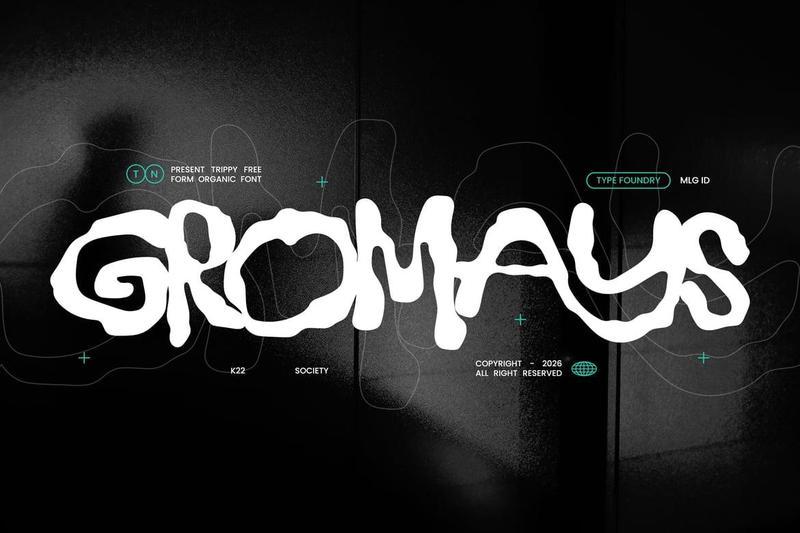
Gromays – Experimental Irregular Graffiti Font 8MVKVYY
Gromays – Psychedelic Organic Display Font with Trippy Graffiti Style
Gromays is a psychedelic organic display font featuring fluid freeform letterforms, experimental shapes, and a distinctive trippy character. Inspired by surreal visuals, underground creative culture, and artistic expression, it delivers a bold and unconventional appearance that instantly captures attention.
Perfect for music posters, album covers, festival branding, editorial layouts, creative campaigns, visual art projects, social media graphics, event promotions, and other experimental design applications. It features multilingual, alternates, numbers, punctuation, and uniquely crafted letterforms that add personality and movement to every composition.
Push creative boundaries and craft visuals that feel imaginative, expressive, and impossible to forget.